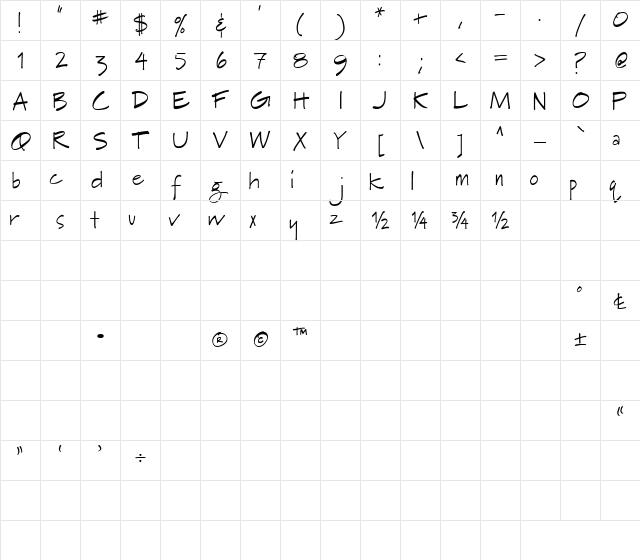
Mike Regular
Designer: Mike
Design Context for Mike
Mike is a composed and adaptable typeface that performs quietly and consistently across a wide range of design contexts.